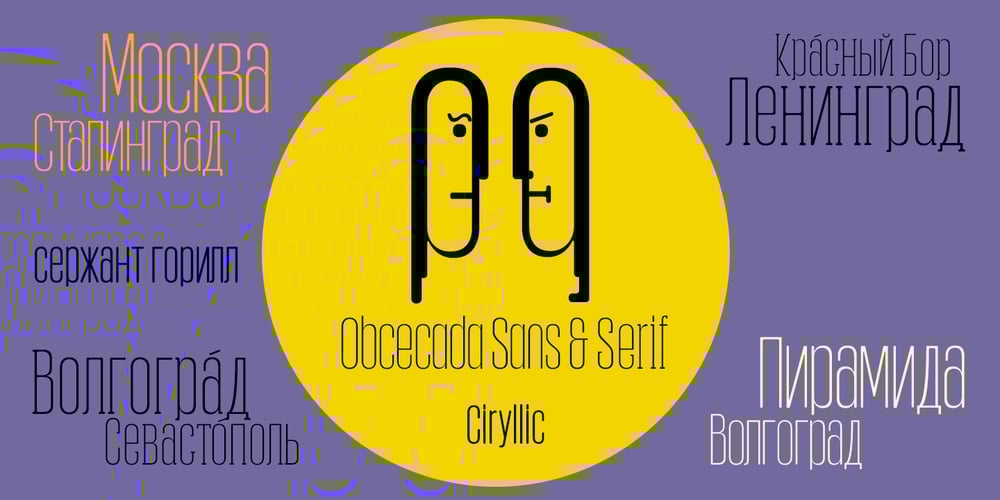
Obcecada Sans & Serif Font Family was designed by Fernando Haro and published by deFharo. Obcecada Sans & Serif contains 4 styles and family package options. Obcecada Sans & Serif are two geometric digital typefaces in regular and bold versions, very condensed and thin with a rounded finish on the horns and joints with a modern style. They include the Cyrillic and Greek alphabet. These fonts are the result of my obstinacy for very condensed fonts, in this case I have inclined to a very fine proportion with short ascending and descending that gives them elegance decó.